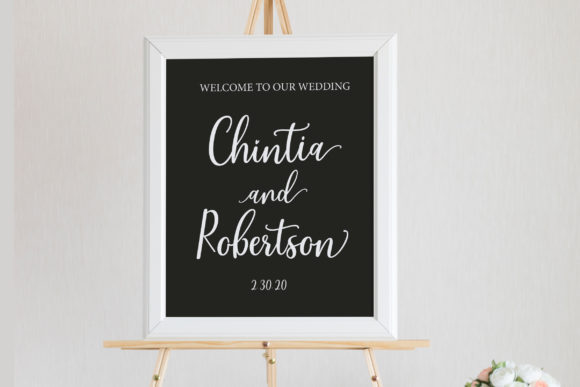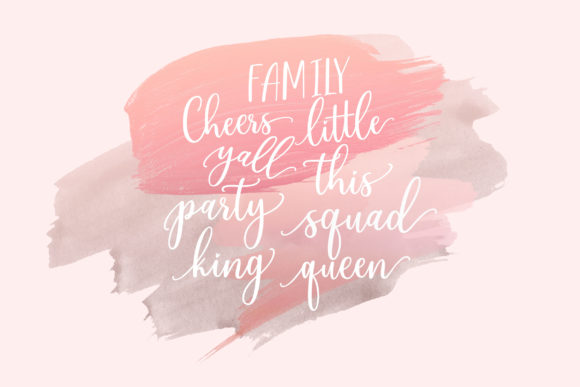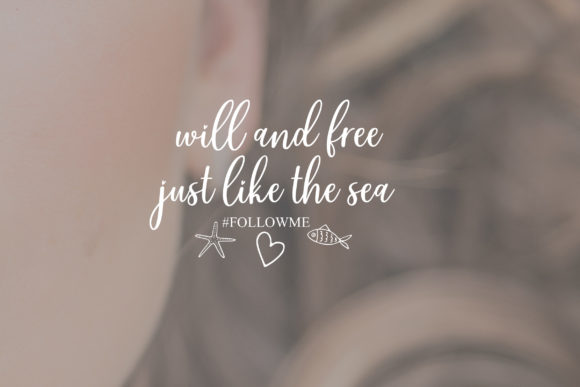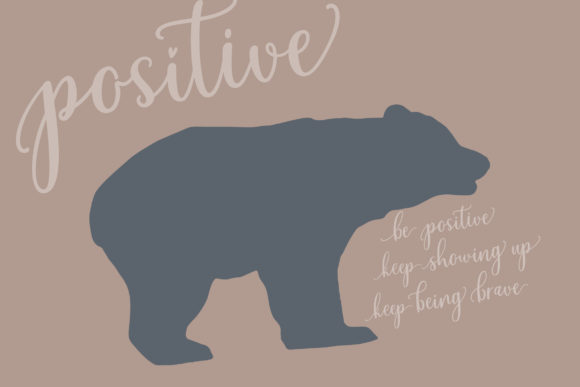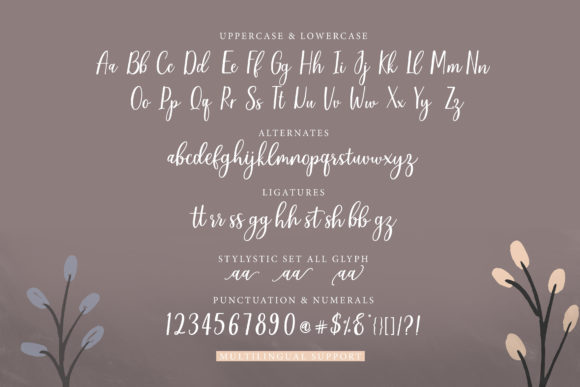
Hastings Script Font: A Timeless Classic Meets Modern Elegance
In the world of typography, few fonts manage to strike a balance between classic sophistication and modern flair. However, the Hastings Script Font achieves just that, offering a beautiful blend of traditional calligraphy and contemporary style. This versatile font is perfect for a wide range of creative projects, from elegant wedding invitations to stylish logos, and from chic t-shirts to sophisticated letterheads.
The Essence of Hastings Script Font
Hastings Script Font is a meticulously crafted typeface that draws inspiration from the classic scripts of the past while infusing it with a modern touch. Its elegant lines, flowing curves, and precise letterforms make it an excellent choice for designers and crafters looking to add a touch of sophistication to their work. Whether you’re creating a vintage-inspired poster or a modern logo, Hastings Script Font is sure to impress.
Key Features of Hastings Script Font
- Classic Style with a Modern Twist: Hastings Script Font boasts a timeless elegance that is perfectly suited for projects that require a classic look with a modern edge.
- Versatile and Adaptable: This font is incredibly versatile and can be used for a wide range of applications, including titles, signatures, logos, wedding invitations, t-shirts, letterheads, nameplates, labels, bulletins, posters, badges, and more.
- Highly Legible: Despite its elegant and cursive nature, Hastings Script Font remains highly legible, making it suitable for both digital and print media.
Creative Applications of Hastings Script Font
The possibilities are endless with Hastings Script Font. Here are some creative ways to use this beautiful typeface:
- Wedding Invitations and Stationery: Add a touch of elegance to your wedding invitations, save-the-date cards, and other stationery with Hastings Script Font.
- Logos and Branding: Create a sophisticated and memorable logo for your business or brand using this versatile font.
- T-Shirts and Apparel: Design stylish and eye-catching t-shirts, hoodies, and other apparel with Hastings Script Font.
- Posters and Flyers: Create stunning posters and flyers for events, promotions, or announcements using this elegant font.
- Signatures and Nameplates: Use Hastings Script Font to create beautiful signatures, nameplates, and labels that exude sophistication.
Why Choose Hastings Script Font?
In a world where typography plays a crucial role in visual communication, choosing the right font can make all the difference. Here are some reasons why Hastings Script Font stands out:
- Unique and Distinctive: This font offers a unique and distinctive style that sets it apart from more common typefaces.
- High-Quality Design: Hastings Script Font is designed with precision and attention to detail, ensuring a high-quality look and feel.
- Time-Saving: With its versatility and ease of use, this font can save you time and effort in your design projects.
Hastings Script Font is a beautiful and versatile typeface that perfectly balances classic style with modern elegance. Its wide range of applications, ease of use, and high-quality design make it an excellent choice for designers and crafters looking to add a touch of sophistication to their work. Whether you’re creating wedding invitations, logos, t-shirts, or posters, Hastings Script Font is sure to impress. So why settle for an ordinary font when you can have a truly exceptional one? Choose Hastings Script Font for your next design project and experience the difference for yourself.